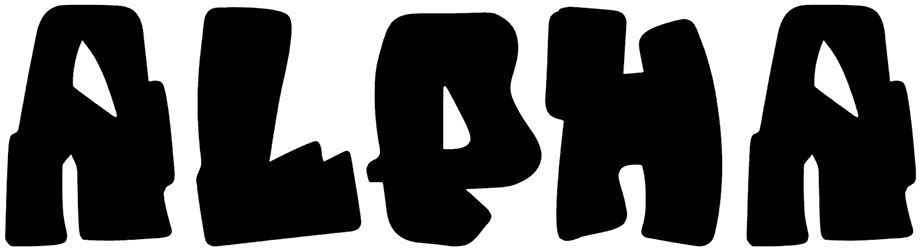
Alpha Font
You should use the font called Alpha if you want to leave a lasting impression on your clients. It works well for both digital and urban artworks.
If you want to look cool and current, try this script graffiti font for your posters, banners, and other promotional materials. This striking font can be downloaded for free on the RB and may give you a leg up on the competition.